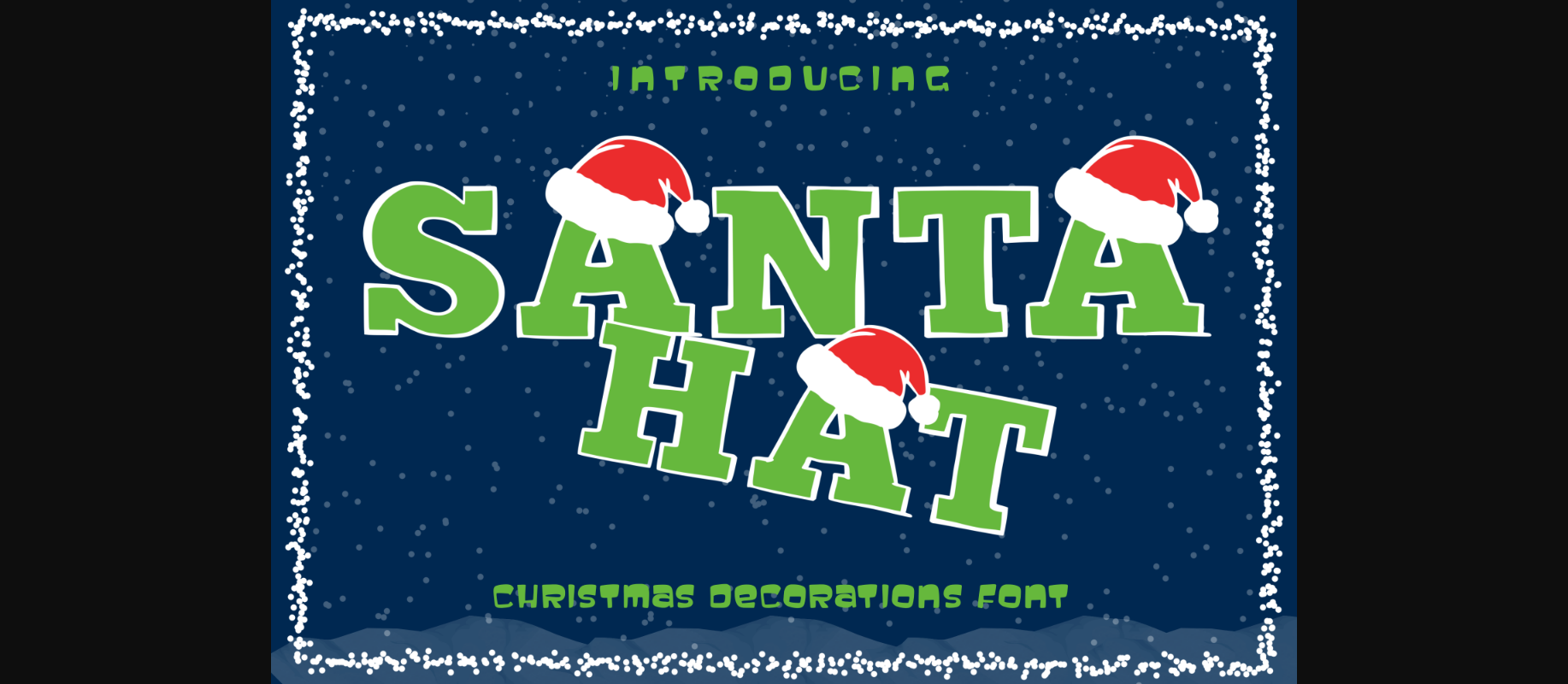
About Santa Hat Font
Santa Hat is a perfect decorative Christmas font that will look outstanding on everything you add it on. Masterfully designed to become a true favorite, this font has the potential to bring each of your creative ideas to the highest level!